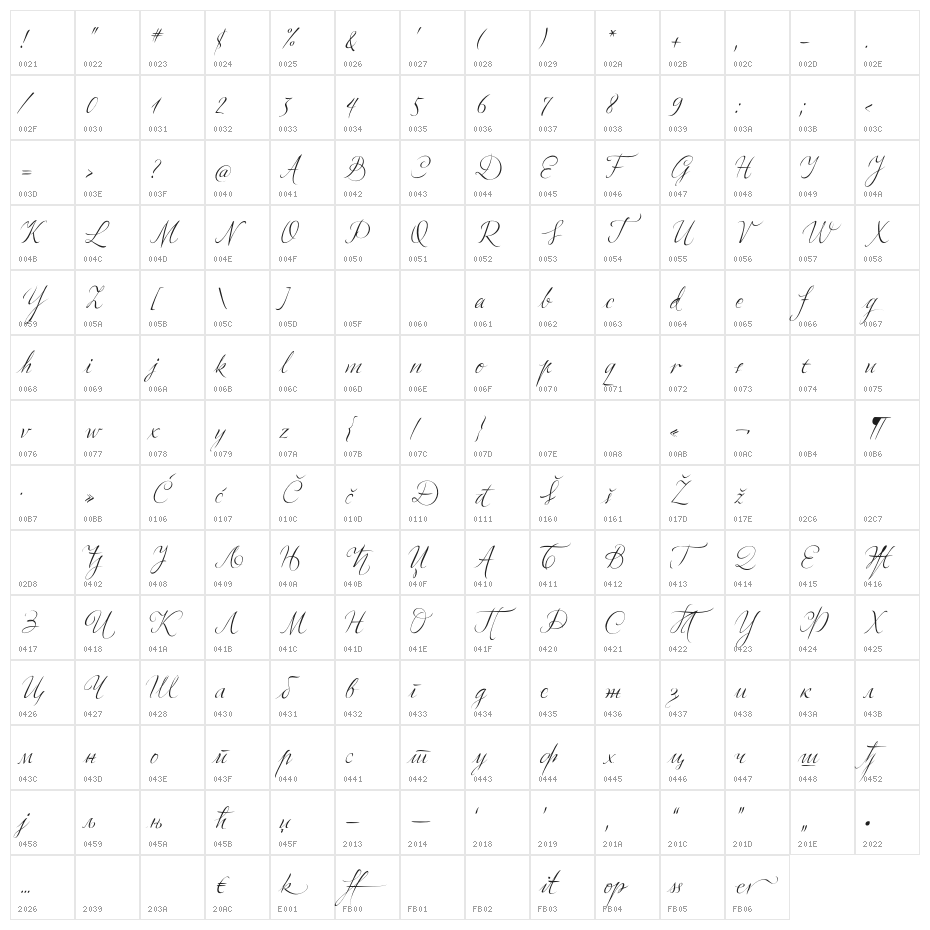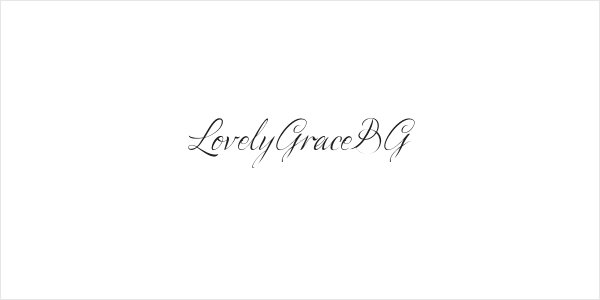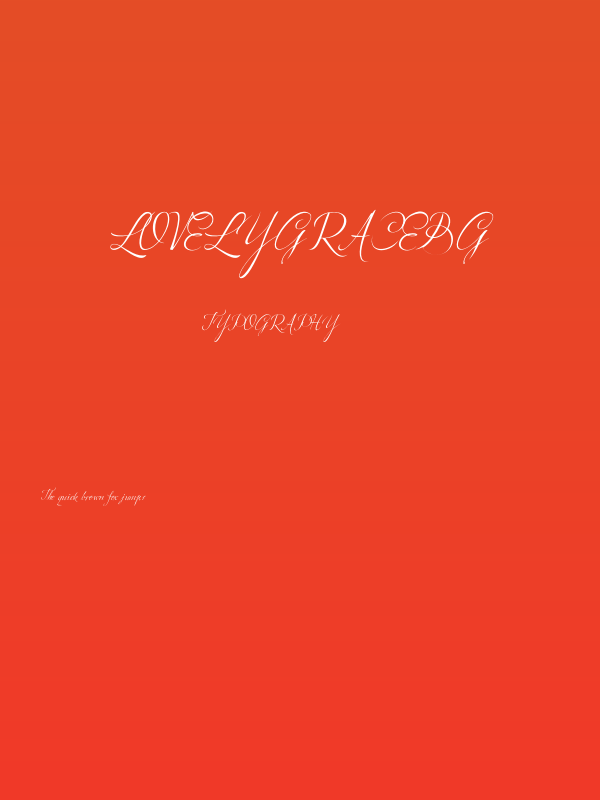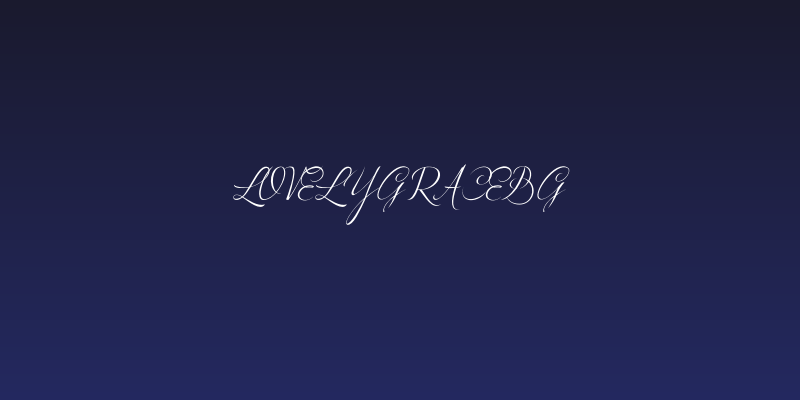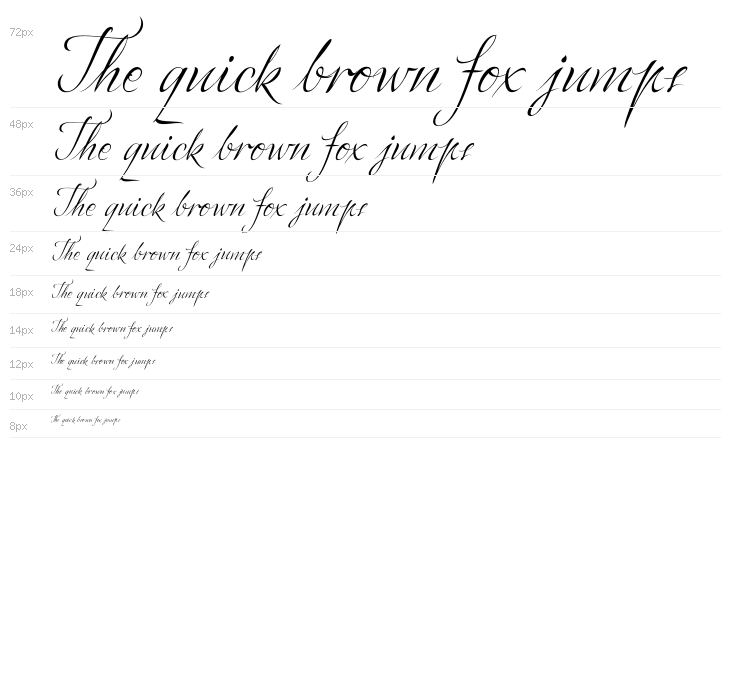
LovelyGraceBG Font
LovelyGraceBG Description
This elegant script font features flowing, cursive letters with a sophisticated and graceful appearance. The characters are connected with smooth, sweeping strokes, giving it a handwritten feel. The uppercase letters are ornate and slightly larger than the lowercase, which are more delicate and refined. The numbers and special characters maintain the same fluid style, ensuring consistency throughout. This font exudes a sense of elegance and charm, making it ideal for formal invitations, branding, and decorative purposes.
| Use Case | Invitations, Branding, Decorative |
| Proposed Projects | Ideal for wedding invitations, elegant branding, greeting cards, and decorative projects. |